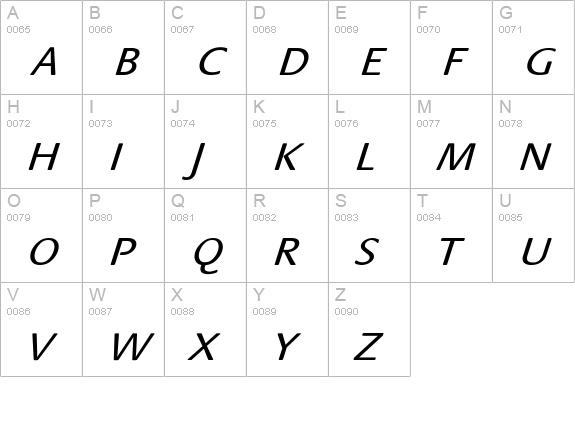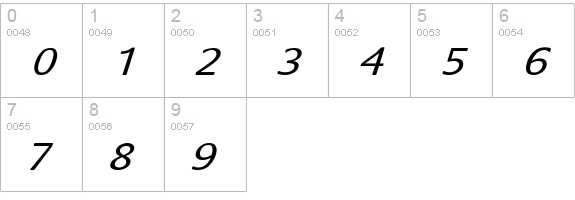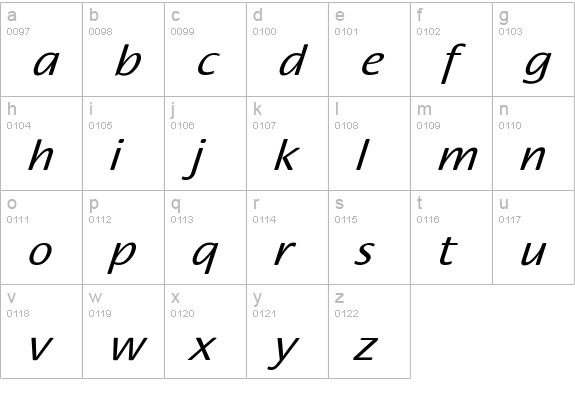
StackExtObl-Nor Font Details
Introducing StackExtObl-Nor, a stunning and versatile font that will elevate your design projects to new heights. This unique font is specially crafted to add a touch of elegance and modernity to any creative endeavor. With its sleek and stylish design, StackExtObl-Nor effortlessly combines a sense of sophistication with a contemporary edge. Its clean lines and sleek curves make it perfect for a wide range of applications, from branding and logo design to web design and print materials. But what sets StackExtObl-Nor apart is its incredible versatility. Whether you're working on a business presentation, a magazine layout, or a social media campaign, this font has got you covered. It can adapt and complement any design style, from minimalistic and clean to bold and expressive. And the best part? StackExtObl-Nor is available for free! That's right, you can easily download this amazing font at FontsMarket.com. Now you can enhance your projects with a high-quality, professional font without breaking the bank. So why wait? Experience the power of StackExtObl-Nor and take your designs to the next level. Download this free font today and unleash your creativity like never before.